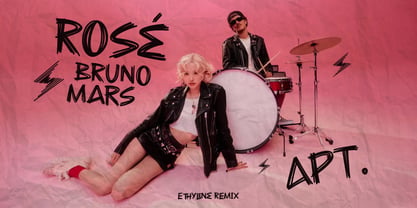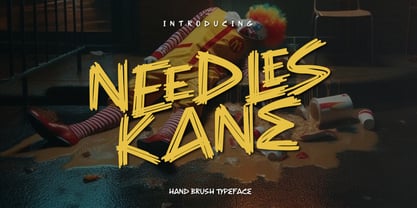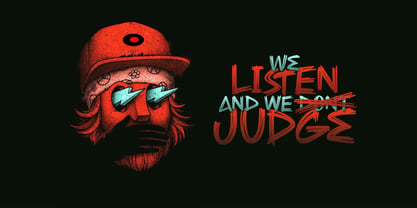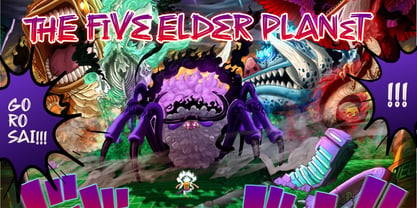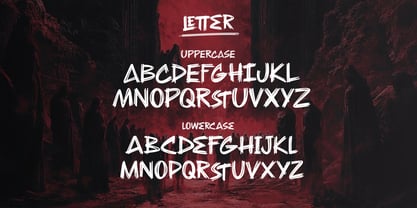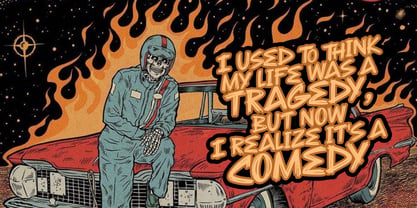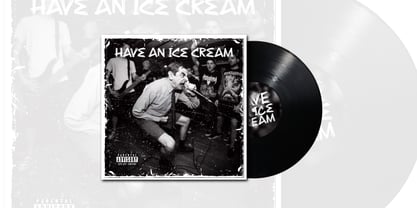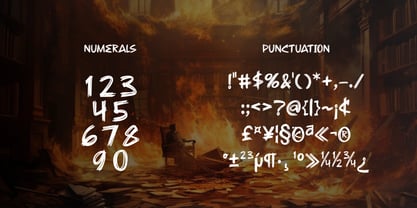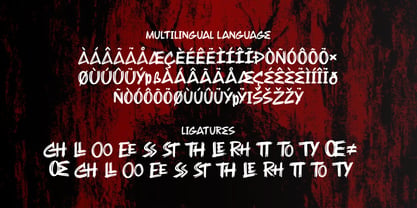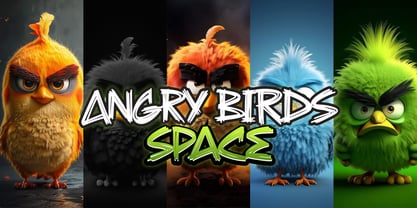
Needles Kane
by Ethylene
The Needles Kane Font Family was designed by Cherly Nugroho and published by Ethylene. Needles Kane contains 1 styles.
Needles Kane is a handwritten brush-style font, designed to give a unique touch with its included ligatures.
This font is perfect for various design needs such as book covers, game titles, YouTube thumbnails, social media posts, logos, and more.
Use this font to add a distinctive handwritten feel to your designs.